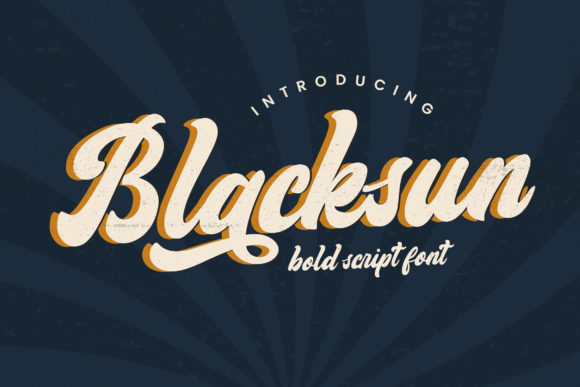
In a world where fonts speak louder than words, Blacksun Font emerges as a symphony of elegance, power, and charm, ready to orchestrate your designs into masterpieces. This captivating script font, conceived by the ingenious minds at Fontherapy, is not just a collection of letters; it's an invitation to embark on a typographic adventure, transforming your creative visions into tangible works of art.
Blacksun Font is more than just a font; it's an experience. Its meticulously crafted strokes dance across the page, evoking a sense of nostalgia and timeless beauty. Each letter is a brushstroke of history, carrying the weight of tradition while embracing the vibrancy of modernity. Whether you're crafting logos that command attention or book reports that leave an indelible mark, Blacksun Font is your steadfast companion, guiding your designs to greatness.
With Blacksun Font, your words take on a life of their own, becoming visual manifestations of your thoughts and emotions. Its bold and confident stance commands attention, while its dynamic curves add a touch of playfulness and intrigue. It's a font that speaks to the heart, resonating with audiences on a deeper level, leaving them spellbound and yearning for more.
Blacksun Font is not just a tool; it's an extension of your creative self. Its versatility knows no bounds, adapting seamlessly to a myriad of projects, from eye-catching headlines that demand attention to book reports that transport readers to distant lands. It's a font that empowers you to express yourself authentically, leaving an everlasting impression on those who encounter your designs.